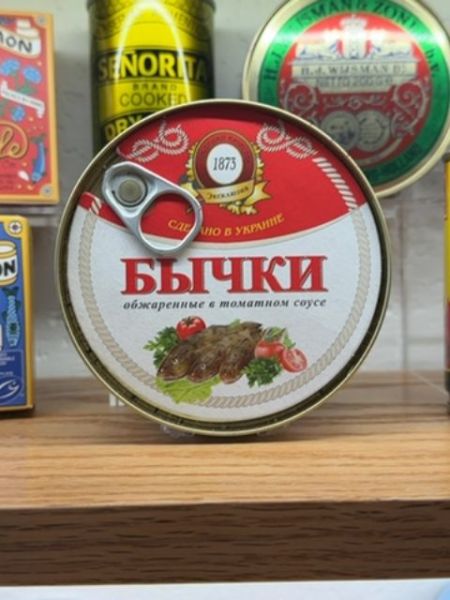
Бычки
The typography features a bold, serif font with high contrast in stroke weight, reflecting a classic and traditional aesthetic. The primary text is in a deep red color, which is eye-catching against the white background.